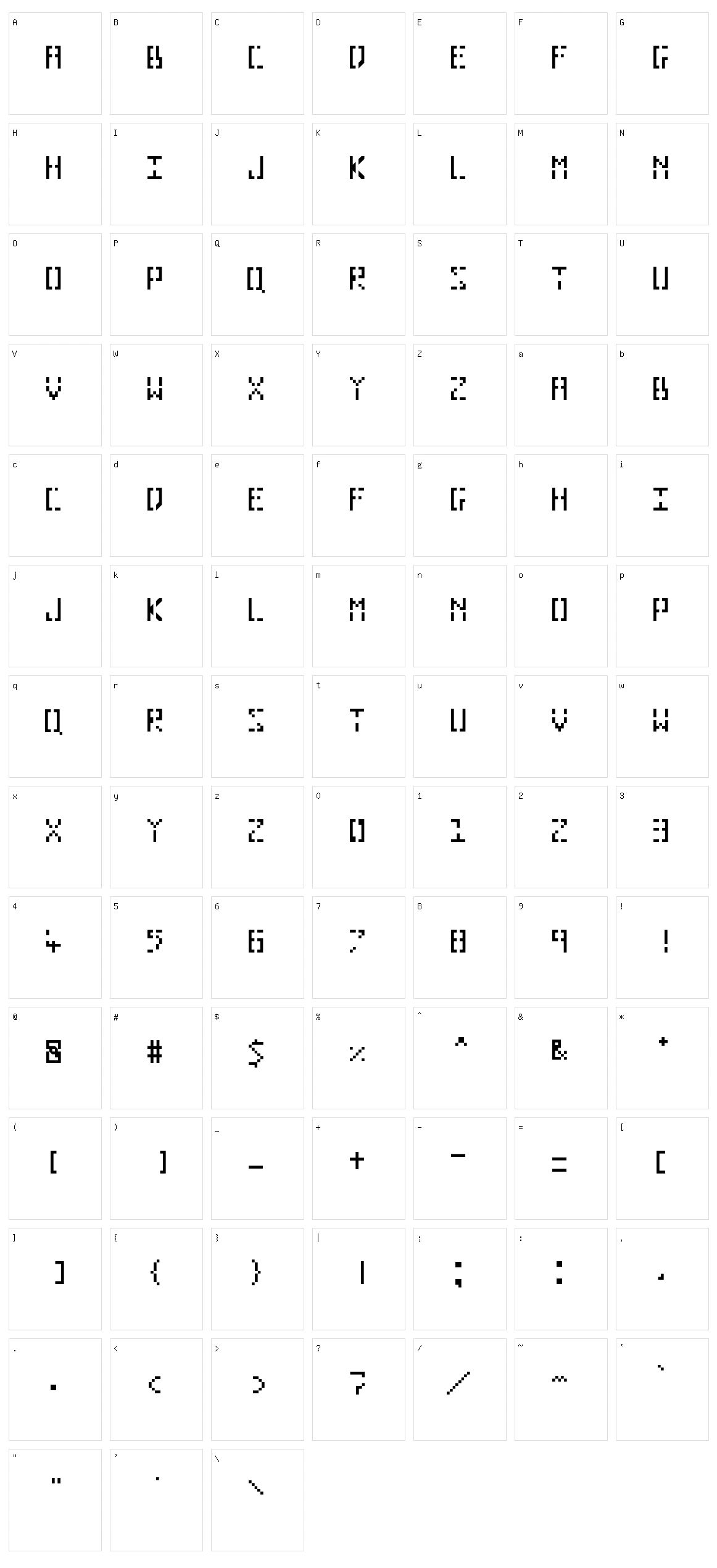
The free font Pixelhole is carefully designed by bob jones, showcasing a thoughtful balance of creativity and usability and falls under the Square font style. When you download the ZIP file, it contains only 4.2 KB of font files, making it lightweight and quick to download. Please review the license details below to understand permitted usage and distribution rights. If license information is not available, we recommend using this font for personal projects only or contacting the author directly for commercial usage permissions.
The FontStruction âPixelholeâ